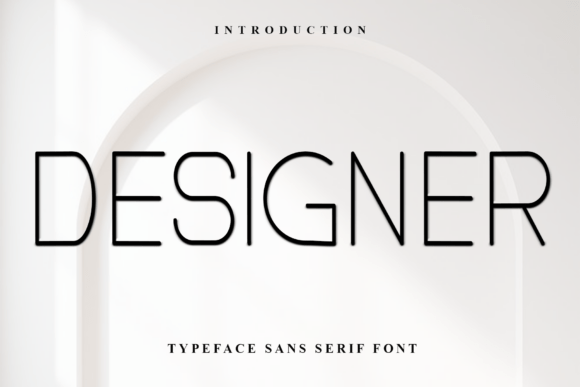
This charming font is designed to bring warmth and friendliness to your projects. Its round, playful strokes create a relaxed and approachable feel, making it perfect for personal projects, invitations, and social media graphics. Whether you’re a seasoned designer or just starting out, the Designer Font is a valuable addition to your toolkit. With its standard PUA Encoded glyphs, you can use it in a variety of application engines, from Adobe Photoshop to Canva.
Key Features of Designer Font
- Font Family: Designer Font offers a wide range of stylish and modern font families, each with unique characteristics and designs.
- Unique Characteristics: Features a unique blend of modern and vintage elements, making it ideal for creative and artistic projects.
Designer Font Review
Overall, I have mixed feelings about “Designer Font”. While it has some great qualities, it also has some notable limitations.
- Unique aesthetic: The font has a distinctive look that sets it apart from more common fonts.
- Good legibility: At larger sizes, the font is easy to read and understand.
- Flexible: It can be used for a variety of projects, from web design to print materials.
- Limited character set: The font is missing some common characters, which can be frustrating to work with.
- Not optimized for small sizes: At smaller sizes, the font can become difficult to read and may appear fuzzy.
- No support for bold/italic styles: This can limit the font’s versatility and make it less suitable for certain projects.
While “Designer Font” has some great qualities, its limitations hold it back from being a top choice for designers. If you’re looking for a font with a unique aesthetic and good legibility, it may be worth considering. However, if you need a font with a full character set, good small-size performance, and support for bold/italic styles, you may want to look elsewhere.
Designer Font is ideal for creating visually appealing headings, titles, and captions.
Use it to add a touch of elegance and sophistication to your designs, or to create a bold and eye-catching effect.
Some common use cases include:
- Brand identity and logo design
- Print materials and marketing collateral
- Digital graphics and social media graphics